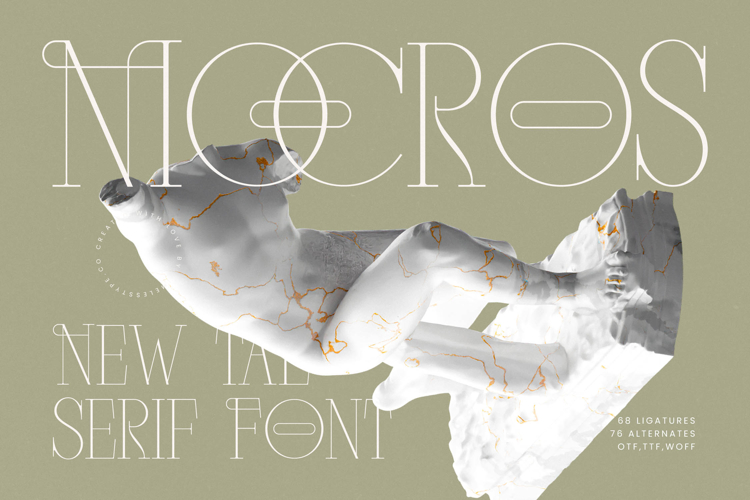
Mocros - New Tall Serif Font
Elevate your design projects with the unparalleled elegance of Font Mocros - New Tall Serif Font Serif Display. This sophisticated display serif font masterfully blends timeless classicism with a modern, minimalist sensibility. Its distinctive tall letterforms and high-contrast strokes command attention, making it the perfect choice for creating truly impactful visual statements that resonate with refinement and style.
Unlock a new realm of typographic expression with Font Mocros - New Tall Serif Font Serif Display's rich feature set. Boasting 68 ligatures and 76 alternates, this typeface provides unrivaled creative flexibility, allowing designers to craft truly bespoke headlines and logotypes. With its extensive multilingual support, Font Mocros - New Tall Serif Font Serif Display adapts seamlessly across global markets, making it incredibly versatile for international projects.
Elevate your brand aesthetic across a multitude of applications. Font Mocros - New Tall Serif Font Serif Display is perfectly suited for luxury branding, high-end packaging, editorial design for fashion and lifestyle magazines, elegant invitations, and sophisticated advertising campaigns. Its inherent grace and bold presence ensure that your message is conveyed with an air of prestige and unforgettable charm.